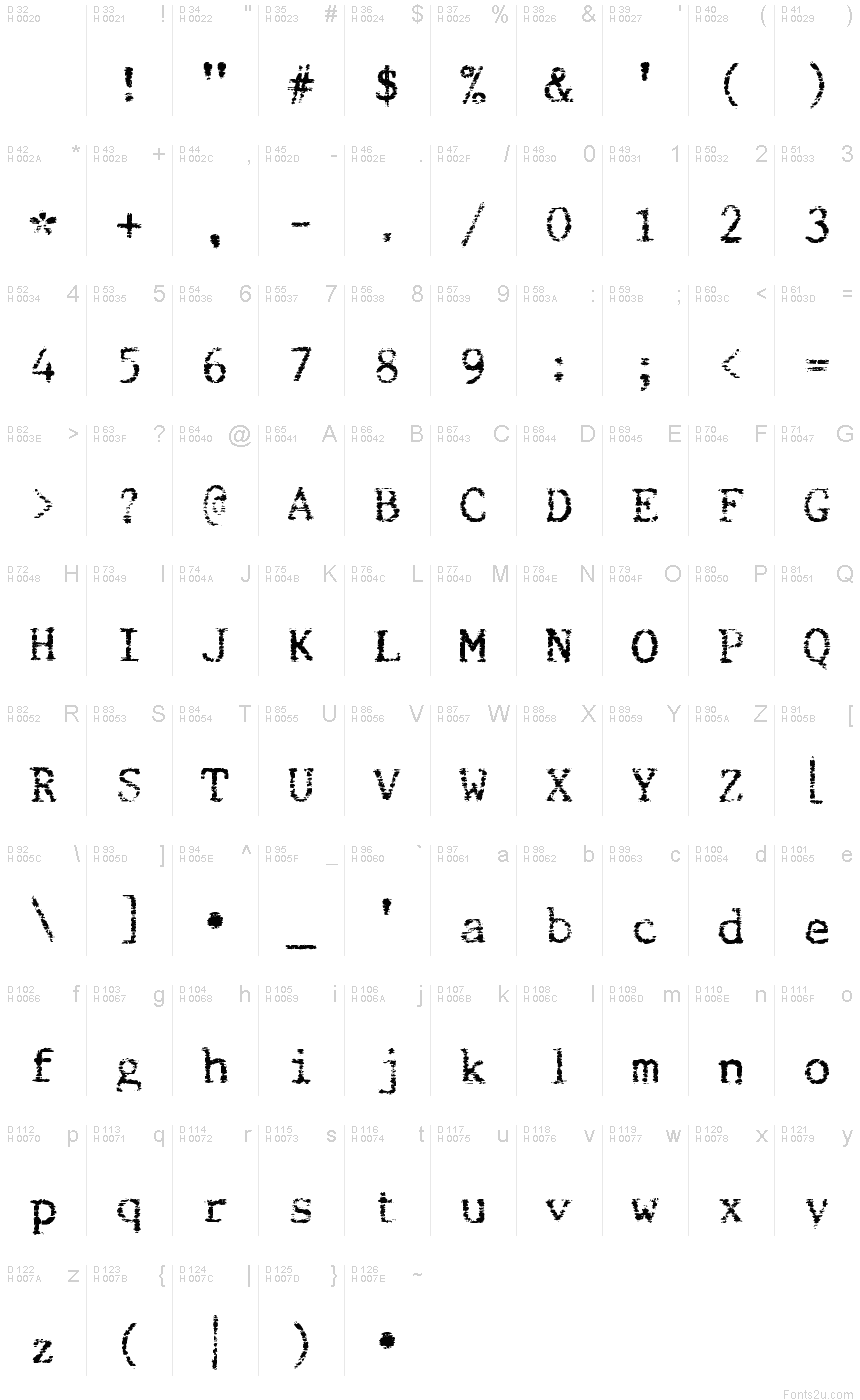
Beccaria
S. John Ross
Named after one of the world's earliest criminologists, and taken from roughened type from a poor ribbon, courtesy of the Austin Public Library.